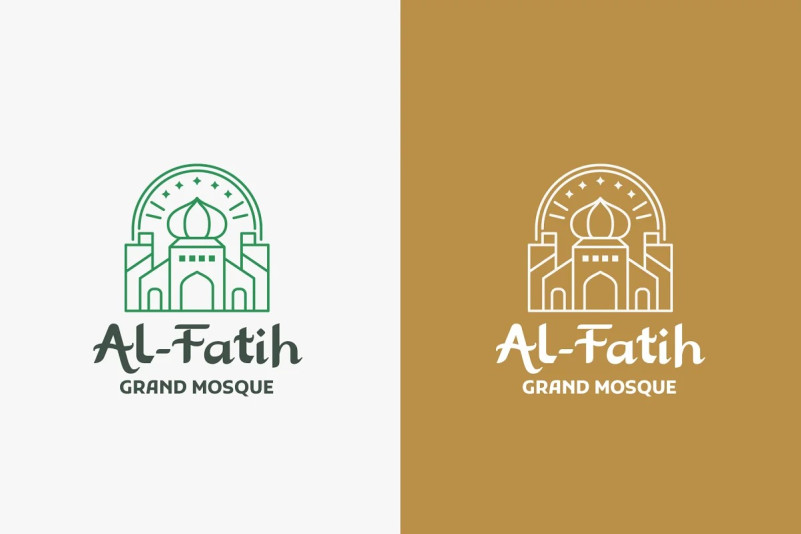
Rhomdon Font
Rhomdon Font is Elegant Arabic Style Typeface from Drizy studio. Offering all the basic styles you will need for a successful project.
Rhomdon Features: Uppercase & Lowercase Numeral & Punctuation Multilingual Ligatures